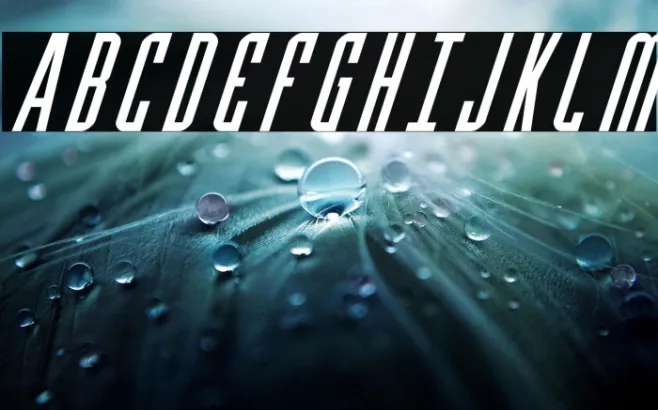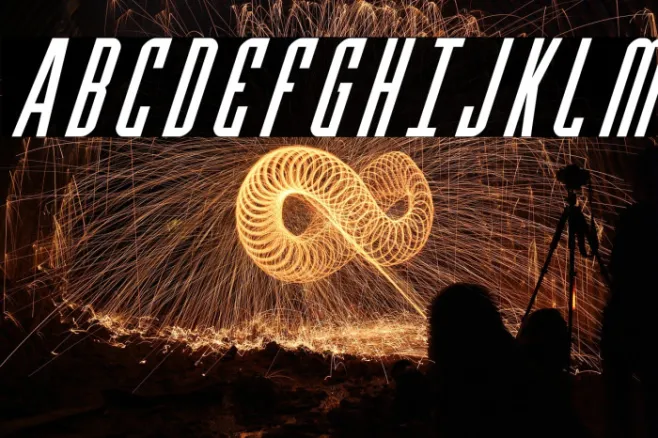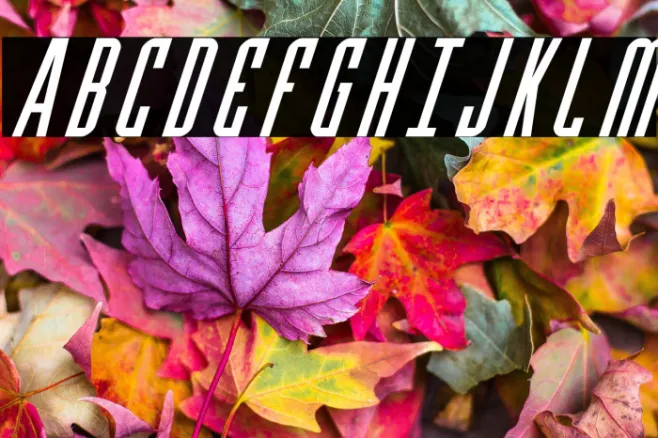
Y-Files Super-Italic Font
Y-Files Super-Italic Description
This font features a dynamic and energetic style with a pronounced italic slant, giving it a sense of motion and speed. The characters are tall and narrow, with sharp, angular edges that convey a modern and futuristic aesthetic. The uppercase and lowercase letters maintain a consistent design, emphasizing verticality and sleekness. Numbers and special characters are designed to match the overall style, ensuring uniformity across all glyphs. The font's boldness and unique slant make it ideal for projects that require a strong visual impact.
Proposed ProjectsIdeal for sports branding, automotive advertisements, and dynamic poster designs.